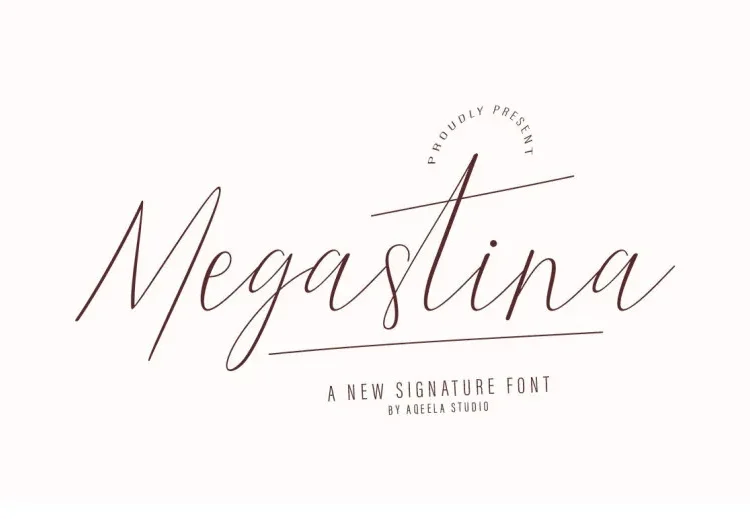
Megastina Font
Megastina is a modern handwritten typeface that combines natural, organic elements with a refreshing style. This versatile font is perfect for branding, offering a variety of options to create both masculine and feminine designs. It beautifully balances the rigidity of handwritten signatures with the natural flow and charm of organic handwriting.
Whether you’re working on logos, product designs, or any other branding material, Megastina’s unique style adds a distinctive touch, making your designs feel both personal and professional. Its flexibility ensures it can be used for a wide range of creative projects.